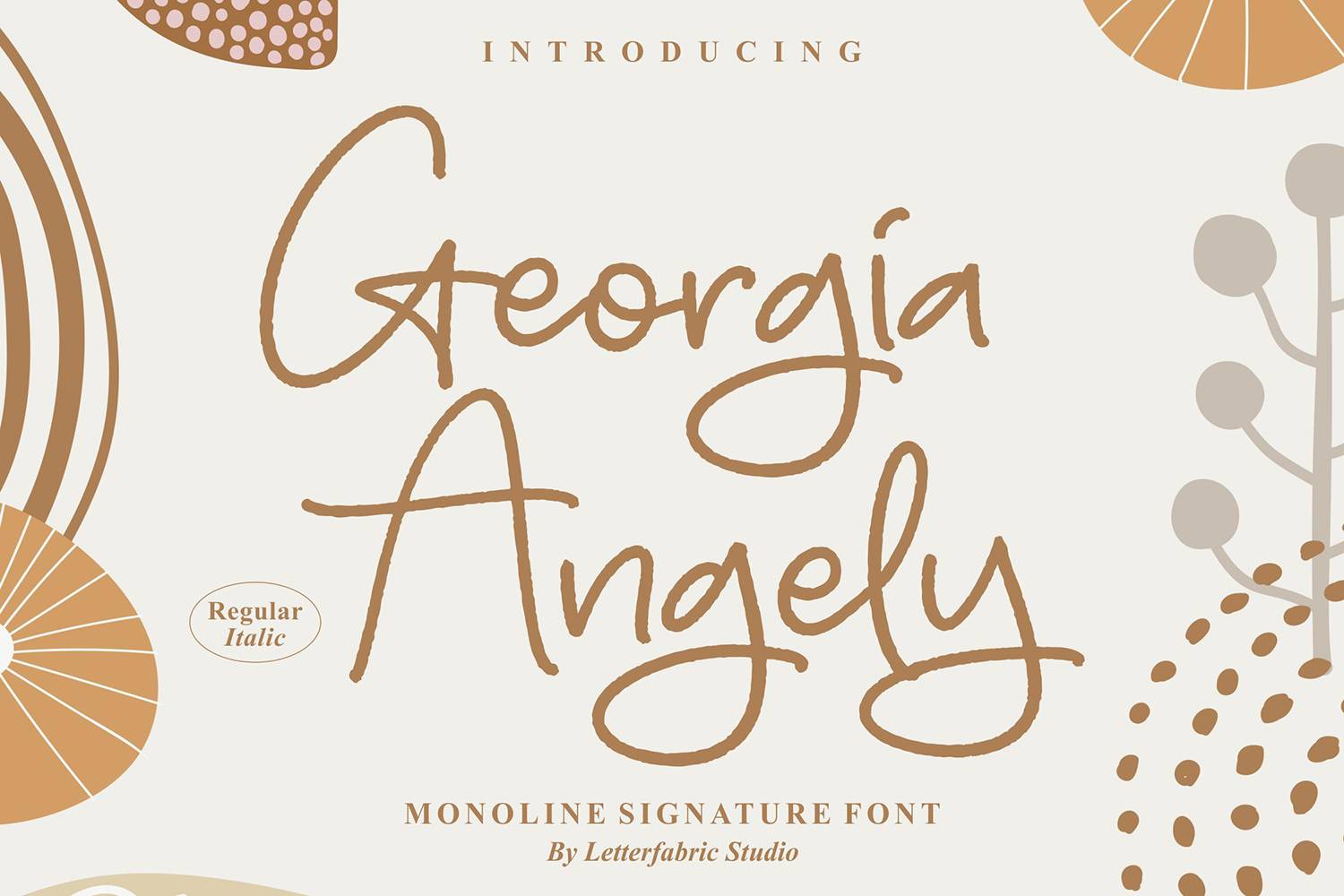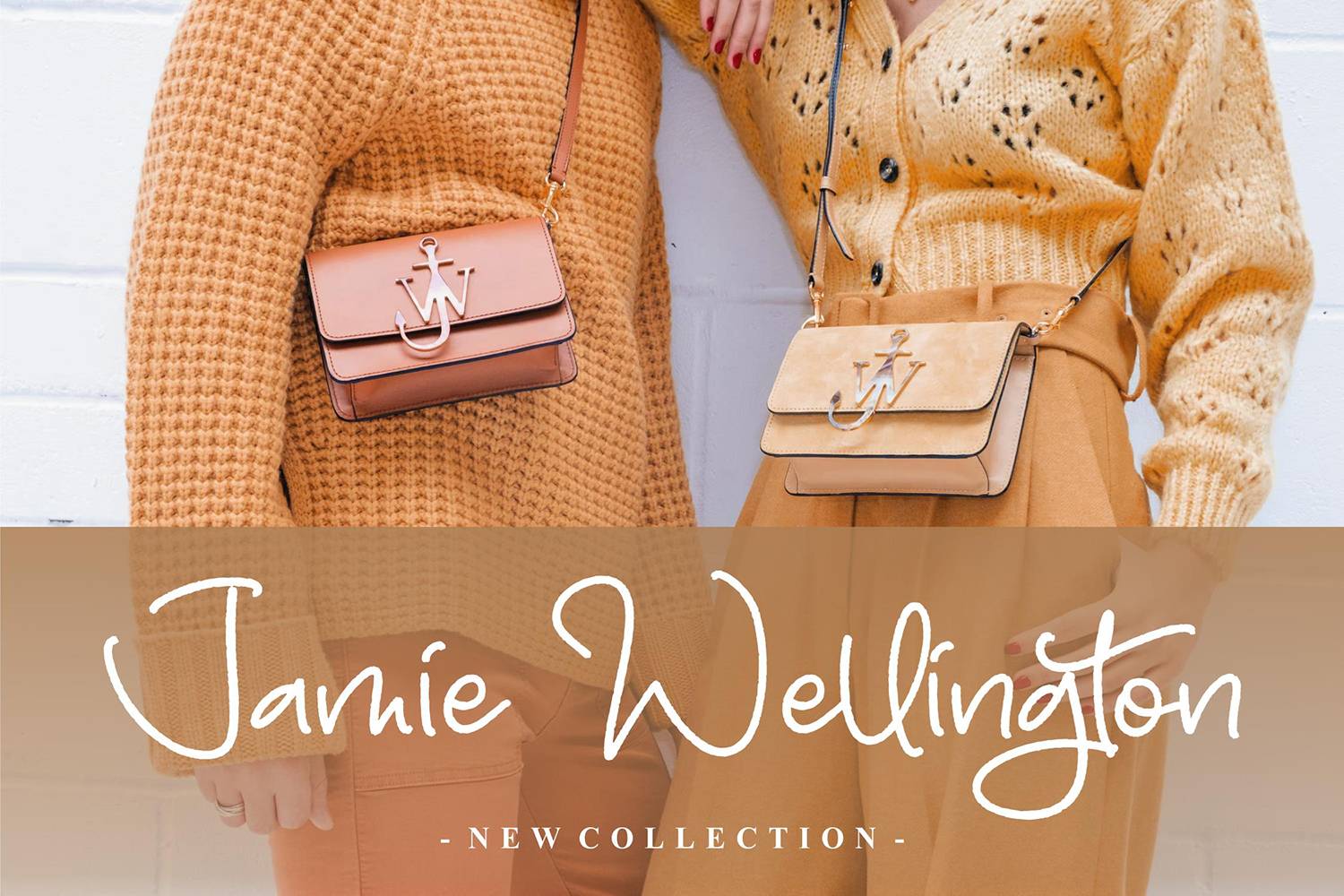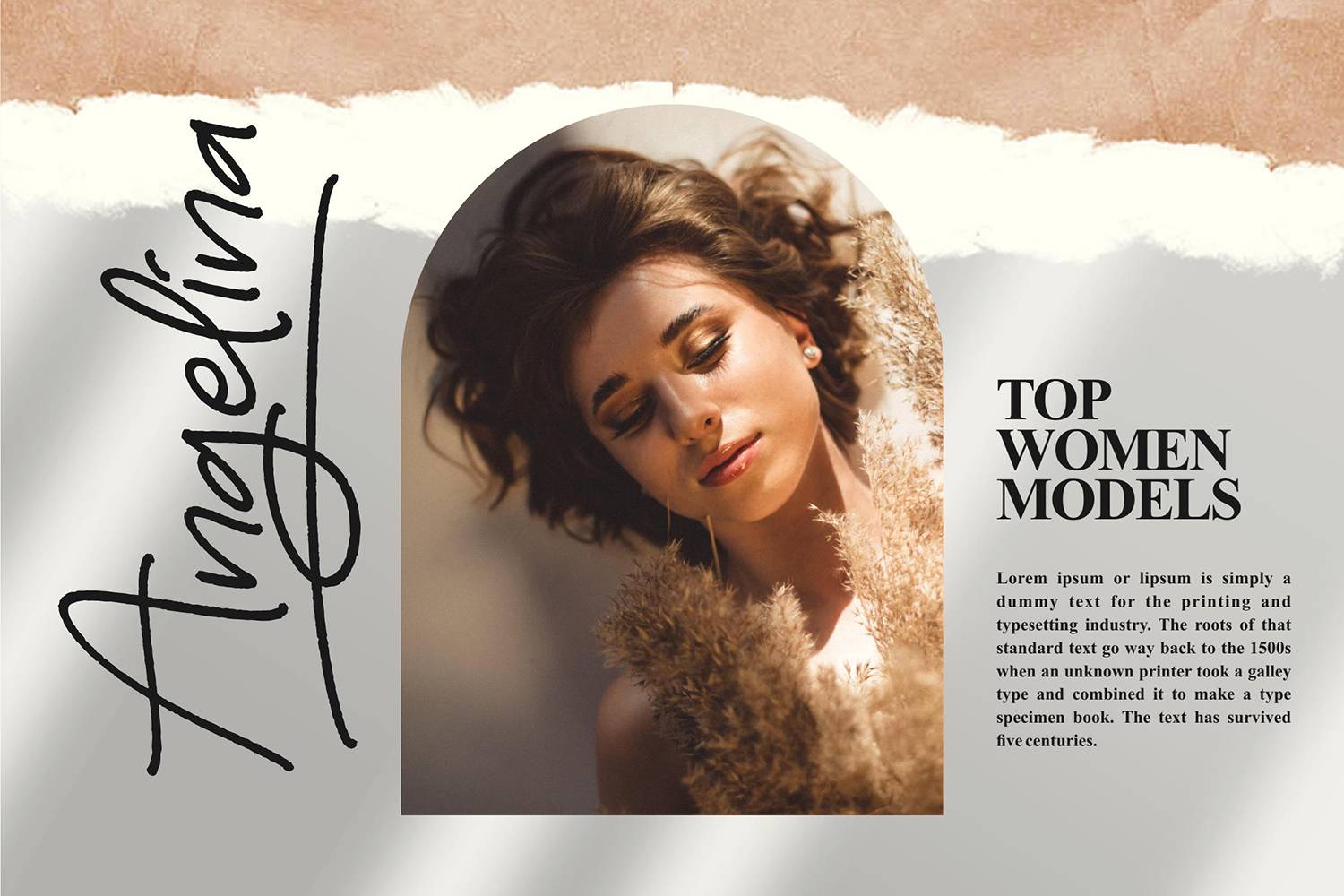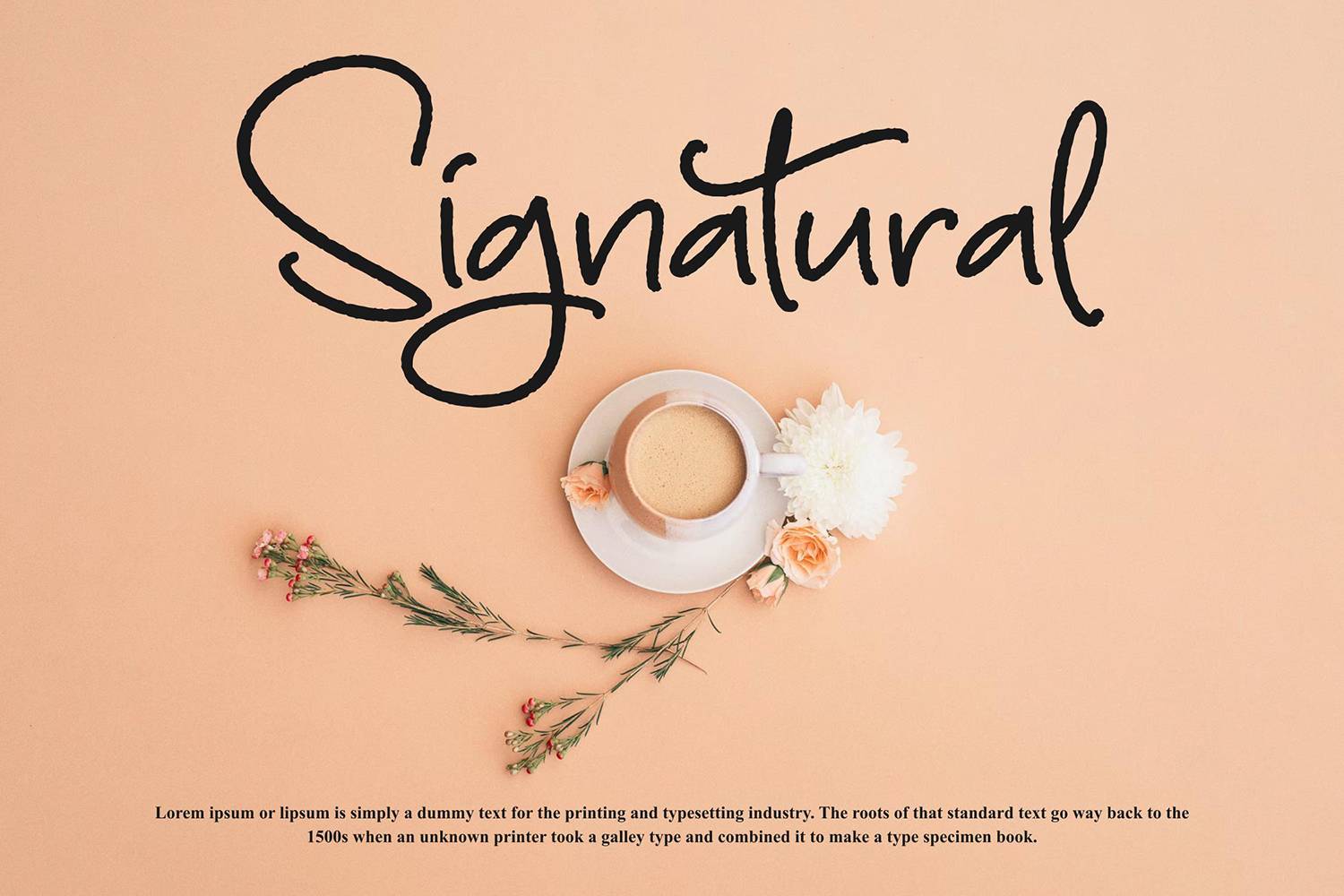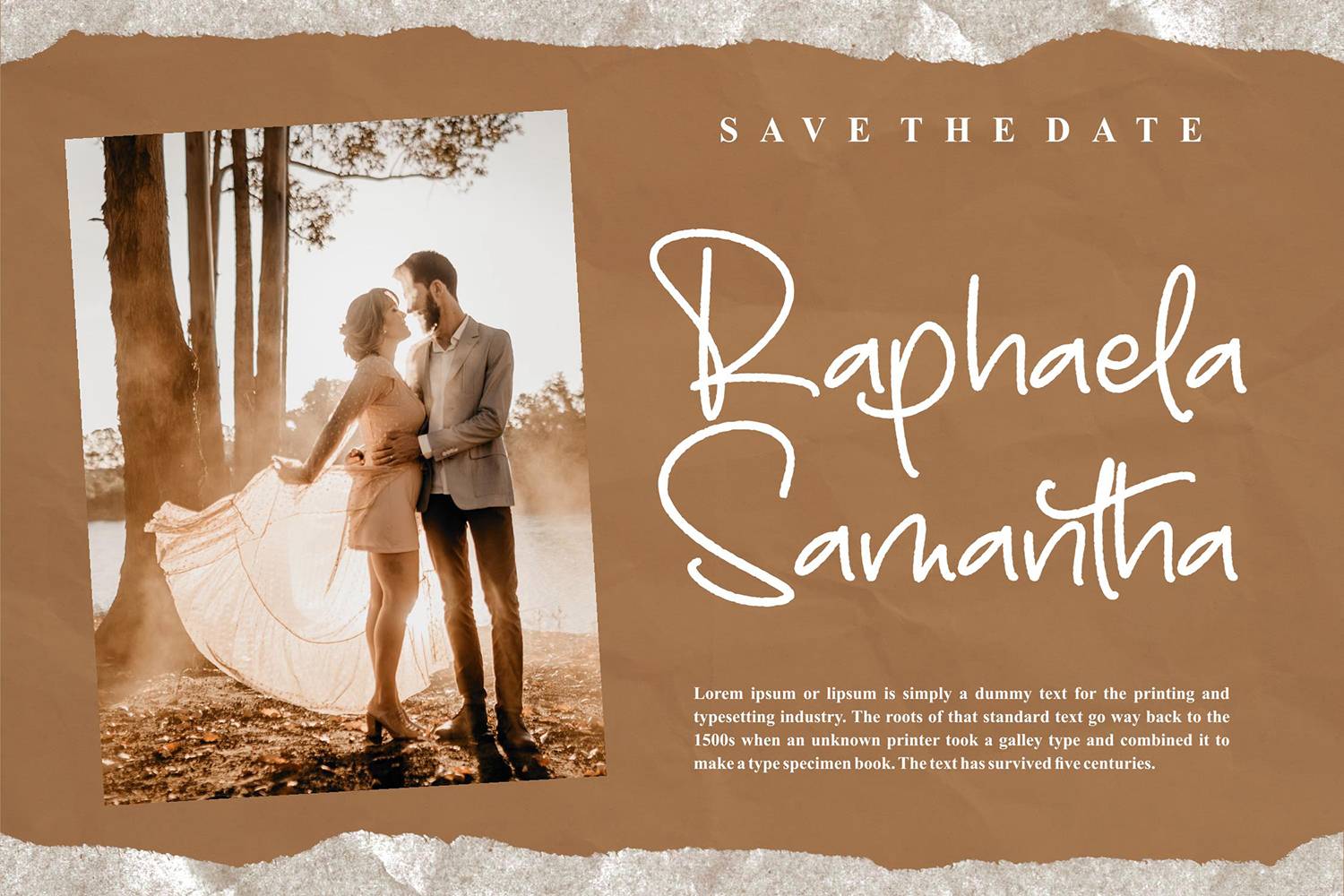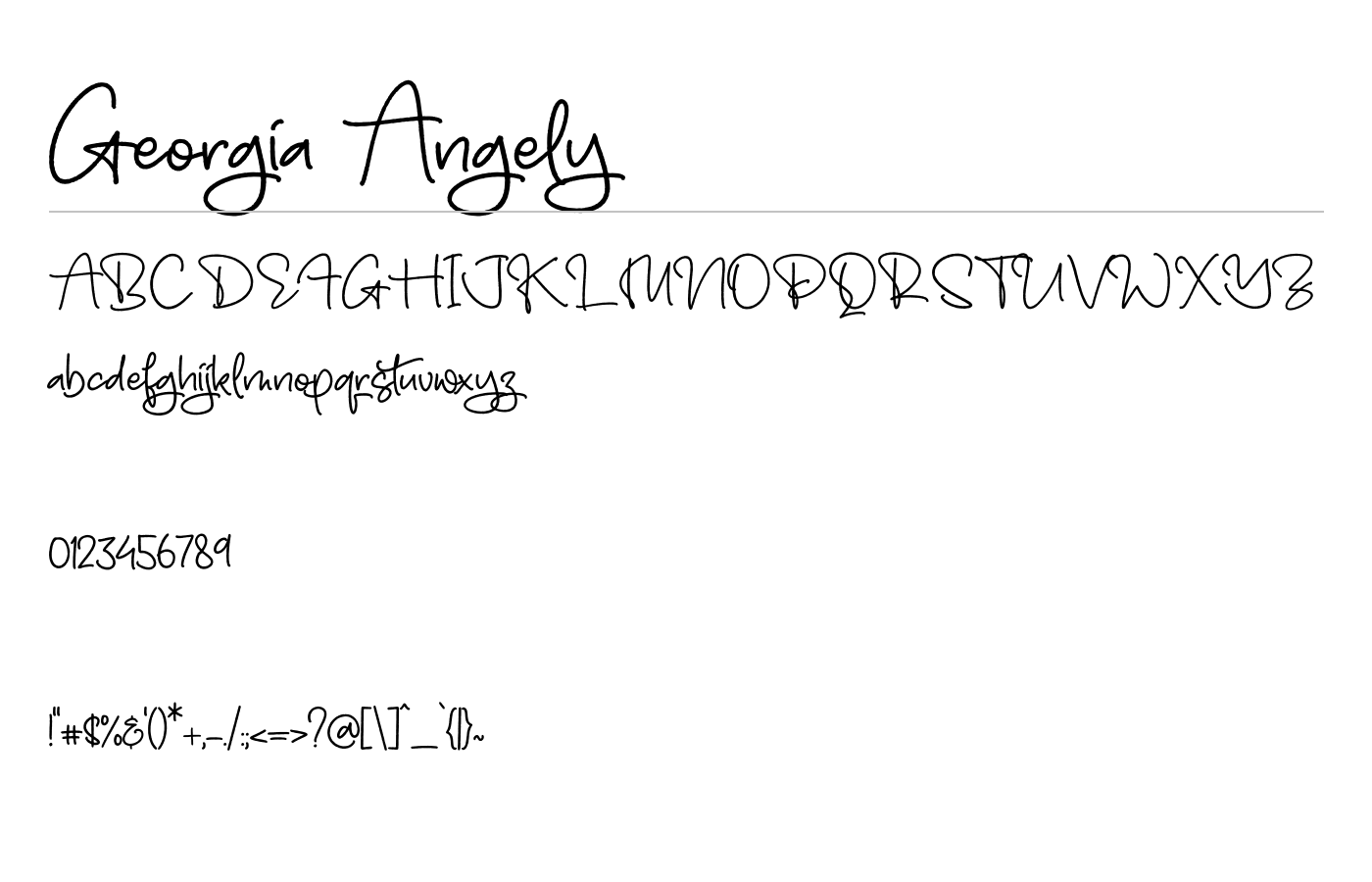
Georgia Angely is a delicate, handwritten script font characterized by its thin, flowing strokes and playful, slightly irregular letterforms. With its casual elegance and airy spacing, it evokes a personal, approachable feel, making it ideal for invitations, branding, and creative projects that seek a stylish yet friendly touch. This font works best where a natural, hand-crafted look is desired to add warmth and personality.
Georgia Angely Font